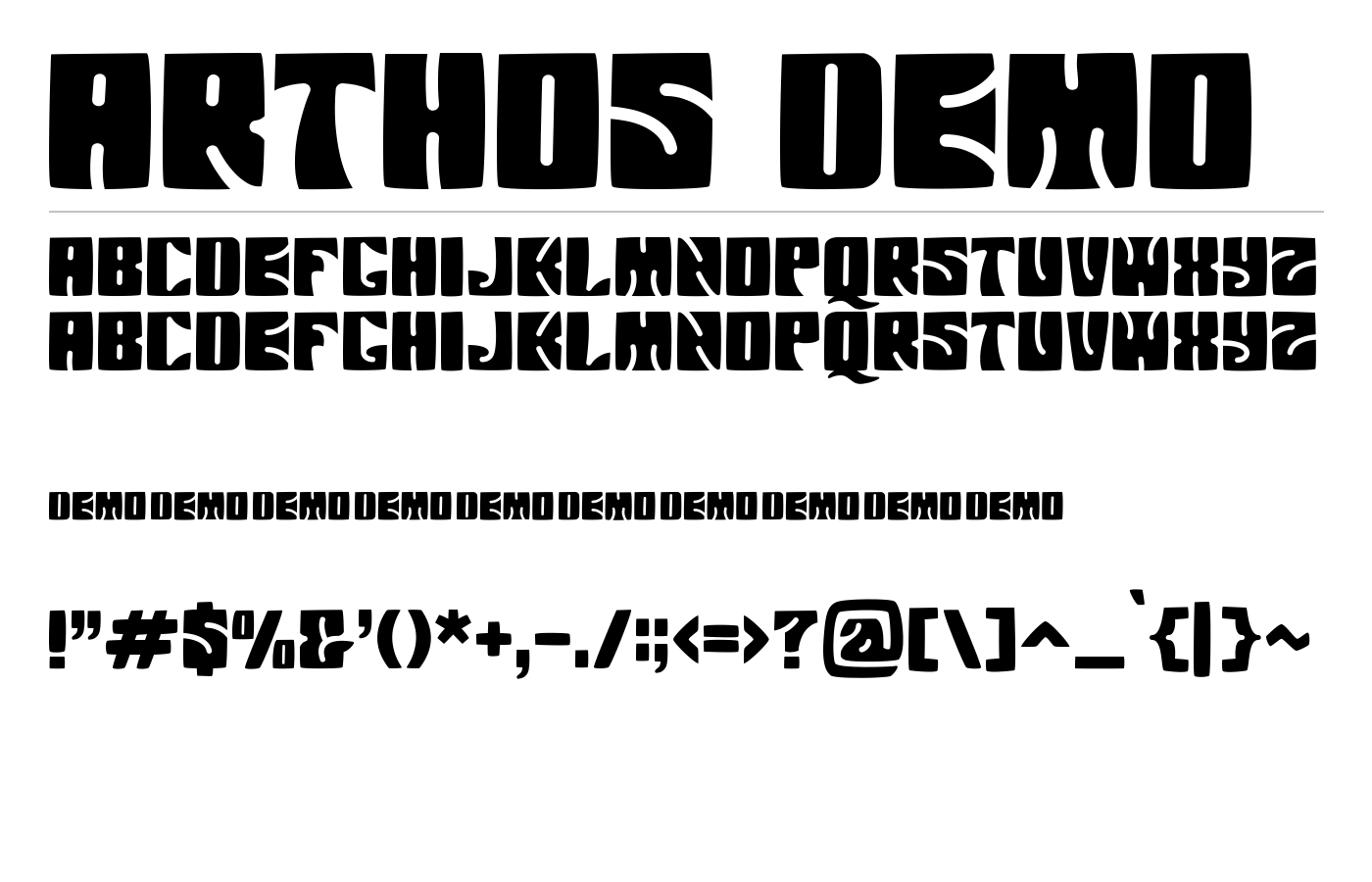
Arthos demo is a bold, condensed display font with a playful and slightly retro vibe, characterized by its blocky letterforms and quirky, irregular shapes. Its strong presence and unique details make it perfect for eye-catching headlines, posters, and branding that aims to stand out with a fun, creative personality. This font works especially well in designs needing a bold statement where legibility and character matter.
Arthos demo Font
About Arthos demo Font